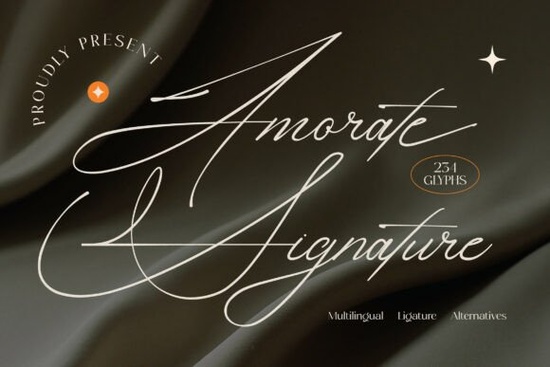
Amorate Signature Font is a beautiful choice for anyone looking to add a personal, elegant touch to their design projects. This script font features long, flowing strokes and refined handwritten details that make it ideal for creating custom-looking text with a truly artisanal feel. Whether you're working on wedding stationery, branding materials, or social media graphics, Amorate brings a sense of intimacy and sophistication to your work.
The font includes 234 glyphs, with a wide selection of ligatures and alternates that allow for unique and expressive typography. Its smooth curves and graceful letterforms make it easy to read while still maintaining a high level of artistic flair. The fluid motion of the characters ensures that your designs remain legible without sacrificing style.
Amorate works especially well with wide-spaced serif fonts, creating a “quiet luxury” aesthetic that’s perfect for high-end projects. It can be used to sign off on newsletters, design product packaging, or create social media quotes that feel like private notes. The font’s refined signature charm makes it a great fit for logos, wedding designs, fashion editorials, and premium visual content.
Why Choose Amorate Signature Font?
If you're looking for a font that adds a personal, human touch to your designs, Amorate is an excellent option. Its flowing strokes and detailed letterforms give your work a handcrafted feel that stands out from more rigid typefaces. The font is especially suited for projects that require a romantic or luxurious vibe, such as wedding invitations, branding for boutique businesses, or creative marketing materials.
One of the key advantages of Amorate is its ease of use. With PUA encoding, you can access all the alternates and flourishes without needing advanced design tools. This makes it accessible for both beginners and experienced designers who want to add a unique touch to their work.
Best Uses for Amorate Signature Font
Amorate Signature Font is versatile enough to work in a variety of design contexts. Here are some of the most popular uses:
- Wedding stationery: Use it for invitations, thank-you cards, and other formal documents that require an elegant, personalized look.
- Fashion and editorial design: Add a touch of sophistication to magazine layouts, fashion spreads, and brand collaterals.
- Branding and logos: Create a unique identity for your business with a font that feels both professional and personal.
- Social media visuals: Design eye-catching quotes, banners, and posts that stand out with a handcrafted aesthetic.
- Product packaging: Enhance the look of your printed materials with a font that exudes quality and attention to detail.
How Amorate Stands Out
Compared to other script fonts, Amorate offers a balance of elegance and practicality. Its long, sweeping ascenders and descenders create a sense of movement that draws the eye, while the fine lines ensure clarity and readability. This makes it suitable for both digital and print projects, giving you flexibility in how you use it.
Whether you're a designer, craft maker, print-on-demand seller, or small business owner, Amorate Signature Font offers a way to elevate your work with a personal and artistic touch. Its combination of beauty, functionality, and ease of use makes it a valuable addition to any design toolkit.